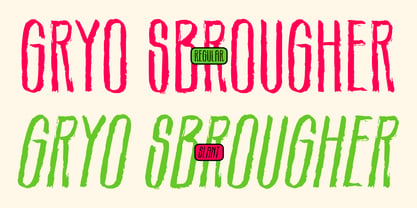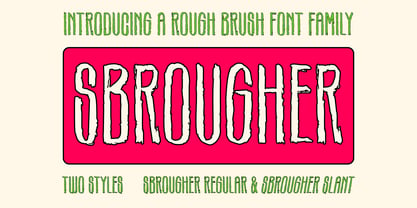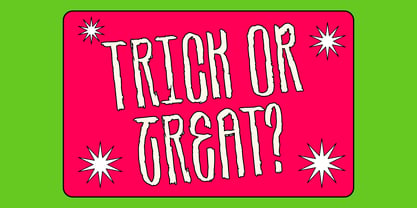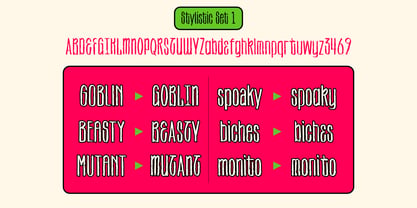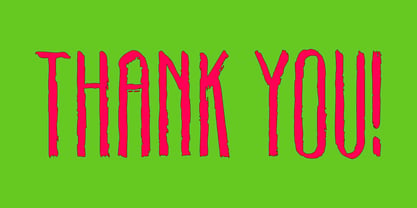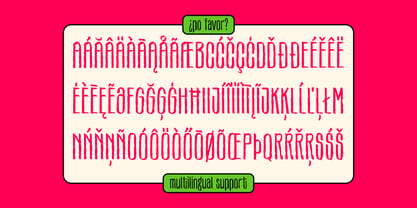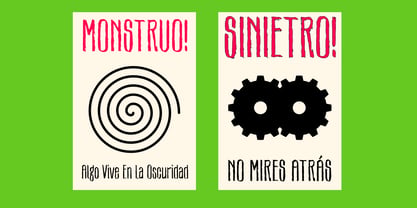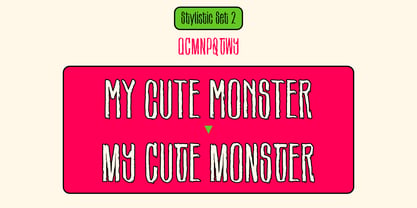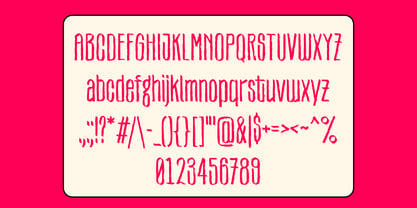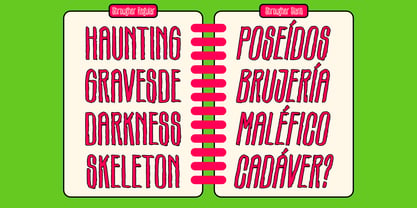
Sbrougher
by Griyotype
The Sbrougher Font Family was designed by Aprian Sembada and published by Griyotype. Sbrougher contains 2 styles and family package options. More about this family
SBROUGHER is a rough brush display family featuring tall, condensed letterforms and an expressive hand-painted texture. Its irregular edges and raw construction give the typeface an energetic, rebellious character with a playful touch of creepiness.
The family includes two styles, Regular and Slant, providing flexibility for bold headlines, posters, branding, packaging, apparel, editorial graphics, and promotional artwork.
SBROUGHER is particularly effective for horror, Halloween, monster-themed, alternative, streetwear, music, and entertainment projects where a distinctive display voice is needed.
The typeface includes uppercase and lowercase characters, numerals, punctuation, multilingual support, and stylistic sets for additional typographic variation.
SBROUGHER Regular
SBROUGHER Slant
Designers: Aprian Sembada
Foundry: Griyotype